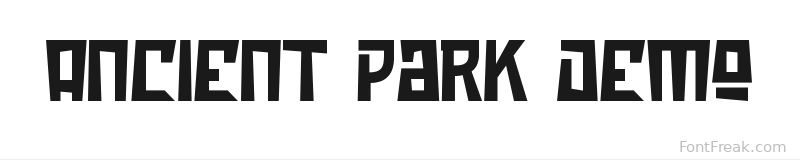
Ancient Park Demo
The Ancient Park Demo font by Noah Type is a striking display typeface that masterfully combines ancient aesthetic elements with a modern twist. As a decorative font, it features bold, thick strokes that evoke a sense of strength and timelessness. The overall design is characterized by its unique letterforms, which exhibit a slight irregularity, adding to the organic feel of the typeface. The contrast between the heavy strokes and the open spaces gives it a grounded yet dynamic appearance, making it visually engaging.
With its distinctive style, the Ancient Park Demo font is ideal for a variety of creative applications. It shines in projects such as movie posters, where its bold character can draw attention and evoke curiosity. Additionally, this font is perfect for restaurant menus, providing a rustic charm that can enhance the overall dining experience. Wedding invitations can also benefit from its unique flair, offering a memorable touch that stands out among traditional typefaces. Furthermore, it is well-suited for branding and logo design, especially for businesses that want to convey a sense of authenticity and heritage.
What sets the Ancient Park Demo font apart is its ability to merge ancient influences with contemporary design principles, making it a versatile choice for any creative endeavor. The Ancient Park Demo font free download offers a unique opportunity for designers to elevate their work with a typeface that is both distinctive and functional.